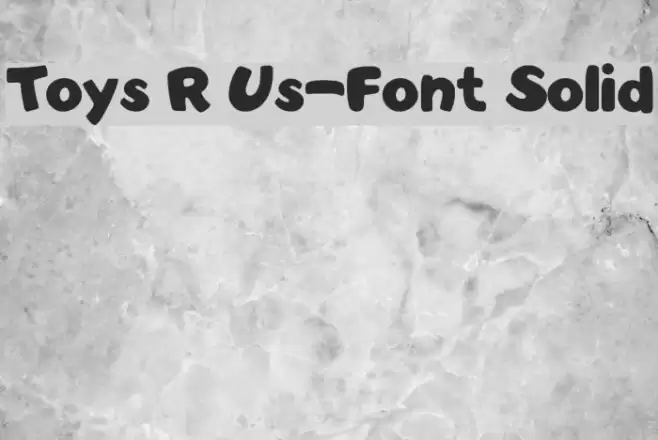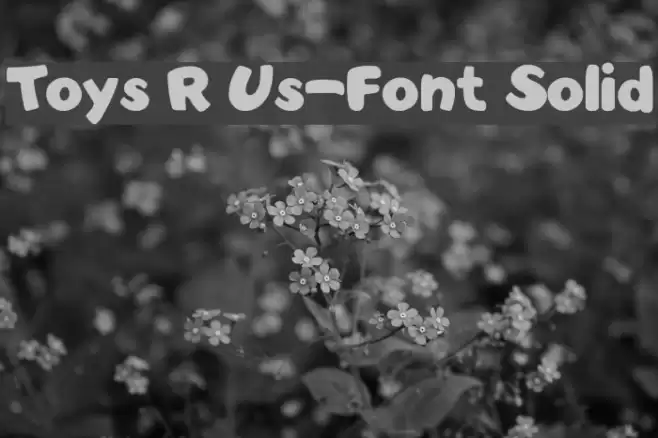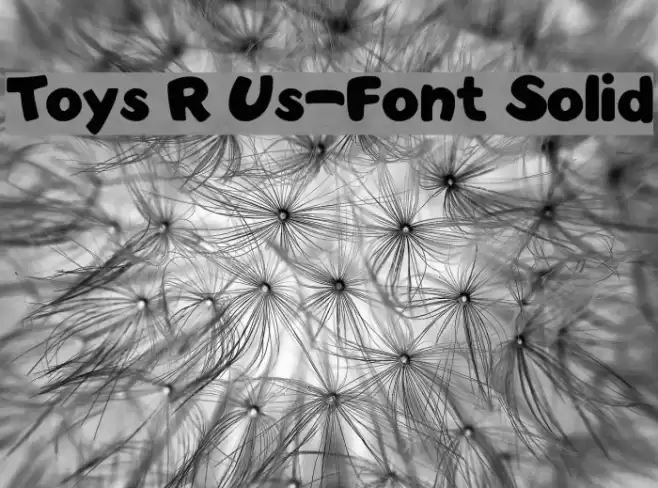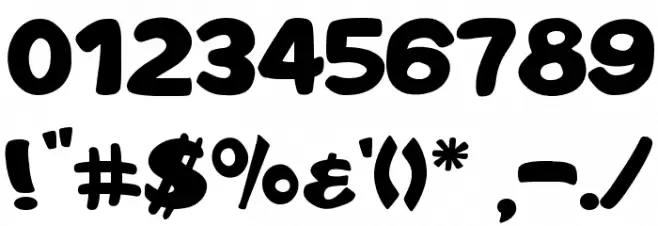
Toys R Us-Font Solid Font
Toys R Us-Font Solid Description
This playful and bold font features rounded, bubbly characters that exude a sense of fun and whimsy. The letters are thick and substantial, with a consistent stroke weight that adds to their friendly appearance. The style is reminiscent of children's handwriting, making it ideal for projects aimed at younger audiences. The numbers and special characters maintain the same playful aesthetic, ensuring a cohesive look across all text elements. The font's design is approachable and lively, perfect for creating an inviting and cheerful atmosphere.
A playful, bold font with rounded, bubbly characters ideal for children's themes from Uncategorized fonts.
- Proposed Projects: Perfect for children's books, toy packaging, playful branding, and educational materials.
- Overall Style: Playful
- Use Case: Logos, Headlines, Children's materials